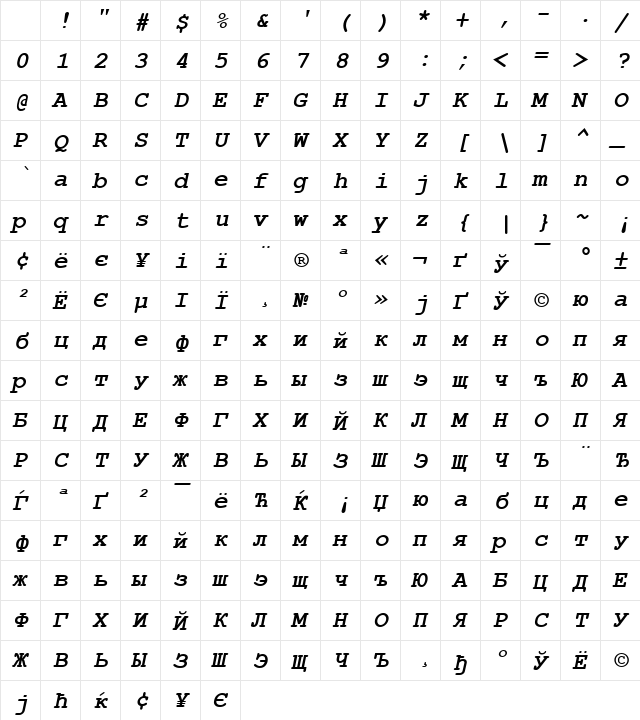
Complete Courier New KOI8 Bold Italic glyph index. Displaying only characters natively supported by Courier New KOI8 Bold Italic font.
Courier New KOI8 uses fixed-width spacing throughout, giving it the structured, systematic character associated with coding environments and technical documentation. The slanted form adds forward momentum and visual energy. Its bold stroke weight gives it real presence on the page.